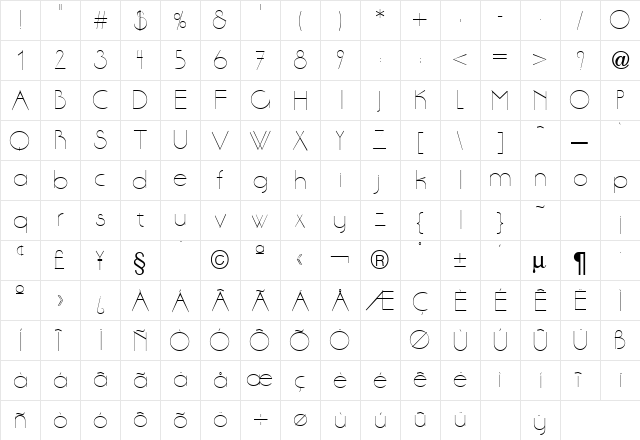
Aase Light Regular
Design Context for Aase Light Typeface
Aase Light is a composed and adaptable typeface that performs quietly and consistently across a wide range of design contexts. Its slender proportions lend an understated elegance to any composition.